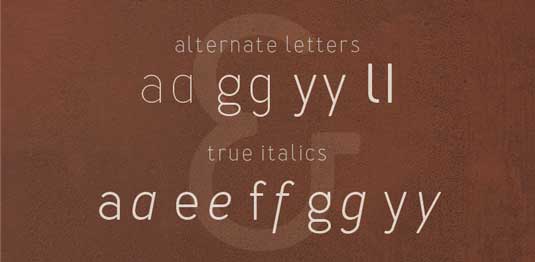
Font of the day: Merlo
Every day we showcase the best fonts on the web. Today it's Merlo by Blazej Ostoja Lniski.
Merlo by Blazej Ostoja Lniski
Today's typeface of choice is sans serif Merlo, created by designer Błażej Ostoja Lniski. "It is inspired by a You And Me monthly, published by National Magazines Publisher RSW Prasa, which appeared from May 1960 until December 1973 in Poland."